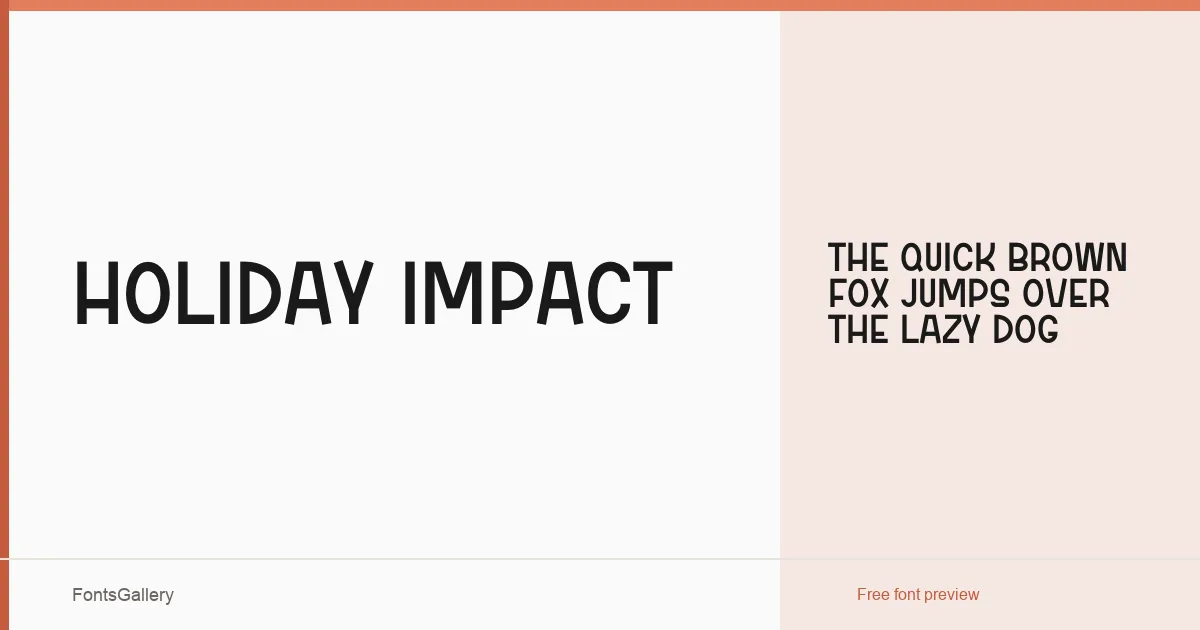
About Holiday Impact Font
Holiday Impact is a striking display typeface crafted by Pian45, designed to command attention across a wide range of creative projects. Blending vintage charm with bold, modern sensibility, it delivers a powerful visual presence that stands out in any composition. This font is an ideal choice for designers seeking a typeface with character, energy, and versatility.
Holiday Impact features bold, assertive letterforms that draw from vintage aesthetics while maintaining a distinctly modern edge. The characters are designed with strong visual weight and confident structure, making each glyph impactful even at a glance. This combination of retro inspiration and contemporary boldness gives the typeface a timeless yet fresh quality.
Holiday Impact excels in high-visibility applications such as logos, posters, headlines, branding materials, and t-shirt designs, where its bold personality can truly shine. Its commanding presence makes it especially effective for grabbing attention in both print and digital contexts. For harmonious pairings, consider combining it with the clean neutrality of Helvetica or the complementary style of Aresink to achieve a well-balanced typographic layout.